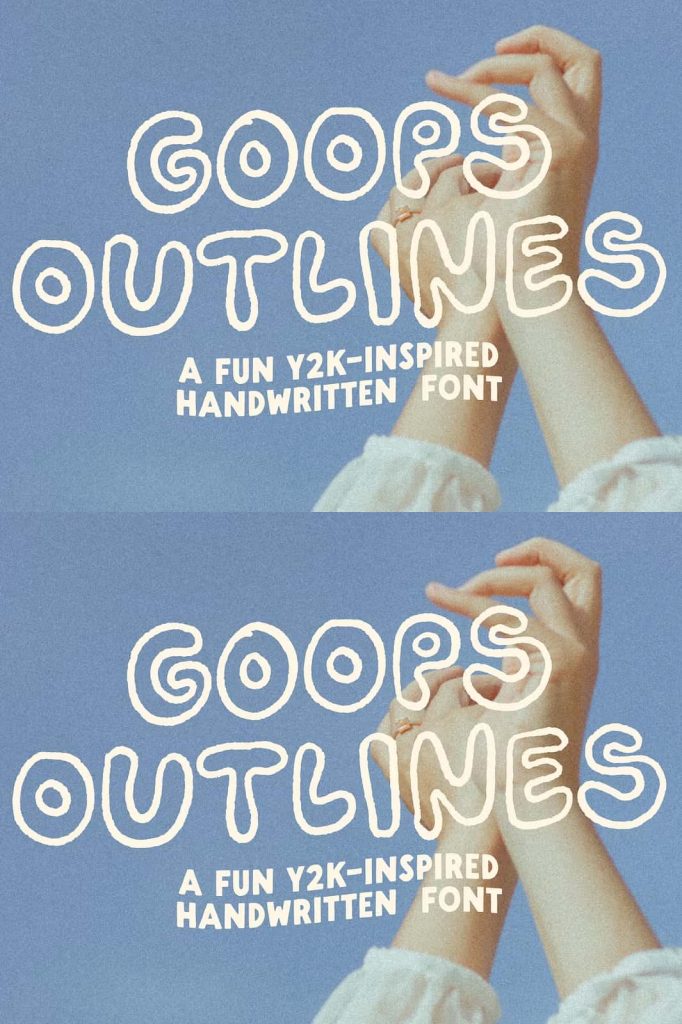
Goops Outlines Bubble Font for Fun Y2K-Inspired Designs
Goops Outlines is a playful and expressive bubble font inspired by the bold and nostalgic energy of the Y2K era. This handwritten typeface brings together soft rounded shapes, textured details, and a slightly imperfect finish to create a font that feels lively and full of personality. Designed for creators who want to stand out, Goops Outlines adds a fun and creative twist to any design project.
Capture the Y2K Aesthetic with a Modern Twist
The Y2K design trend continues to influence modern visuals, and Goops Outlines embraces this aesthetic with confidence. Its bubbly letterforms and playful style reflect the bold experimentation of early digital culture, while its refined execution ensures it works seamlessly in today’s creative landscape.
You can use this font to bring a sense of nostalgia into your work while keeping your designs fresh and relevant. The combination of retro inspiration and modern usability makes Goops Outlines a versatile choice for designers across different industries.
Two Unique Styles for Creative Flexibility
Goops Outlines includes two distinct styles: regular and bouncy. The regular style offers a stable and clean bubble appearance, making it perfect for readable headlines and structured layouts. The bouncy style introduces movement and rhythm, giving your designs a more dynamic and playful feel.
By switching between these styles, you can easily create contrast and visual hierarchy within your projects. This flexibility allows you to experiment with different moods while maintaining a consistent typographic identity.
Designed with Texture and Personality
One of the defining features of Goops Outlines is its subtle texture and “goopy” effect. This design choice adds depth and character, making each letter feel handcrafted and unique. Instead of looking overly polished or mechanical, the font embraces imperfection to create a more organic and engaging appearance.
This textured quality helps your designs feel more approachable and creative. It also enhances the visual impact, ensuring that your typography stands out in both print and digital formats.
Alternates for Handmade Variety
Goops Outlines includes a range of alternate characters that give you even more creative control. These alternates allow you to customize your text and avoid repetitive letterforms, resulting in a more natural and handcrafted look.
You can mix and match different variations to create unique compositions that reflect your personal style or brand identity. This feature is especially useful for designers who want to achieve a truly original and custom appearance.
Perfect for Bold and Playful Projects
Goops Outlines works exceptionally well for projects that require a fun and energetic vibe. Its bold shapes and expressive style make it ideal for posters, social media graphics, and promotional materials that need to capture attention quickly.
You can use it to design eye-catching headlines, vibrant branding elements, and creative layouts that leave a lasting impression. The font’s playful nature makes it a great fit for youth-oriented brands, creative campaigns, and artistic projects.
Enhance Branding and Visual Identity
If you want to build a brand that feels unique and approachable, Goops Outlines provides a strong foundation. Its distinctive style helps you create logos and brand elements that stand out while maintaining a consistent visual language.
The combination of bubble shapes, texture, and alternates allows you to craft a brand identity that feels both fun and memorable. This makes it an excellent choice for creative businesses, entertainment brands, and lifestyle products.
Versatile for Digital and Print Use
Goops Outlines adapts easily to various formats and platforms. Whether you design for social media, websites, packaging, or printed materials, the font maintains its playful character and readability. Its bold structure ensures that your message remains clear even in visually busy environments.
You can experiment with colors, layering, and effects to enhance its impact and create designs that truly stand out.
Key Features of Goops Outlines Font
- Y2K-inspired handwritten bubble font with playful character
- Includes regular and bouncy styles for creative flexibility
- Textured and slightly imperfect design for a unique look
- Alternate characters for more natural and customized typography
- Ideal for branding, posters, social media, and creative projects
Bring Playful Energy into Your Designs
Goops Outlines bubble font empowers you to create bold, expressive, and visually engaging designs. Its combination of nostalgic inspiration and modern features makes it a powerful tool for designers who want to push creative boundaries.
If you want to add personality, texture, and a fun Y2K vibe to your work, Goops Outlines delivers everything you need. Use it to create designs that feel unique, dynamic, and full of life.